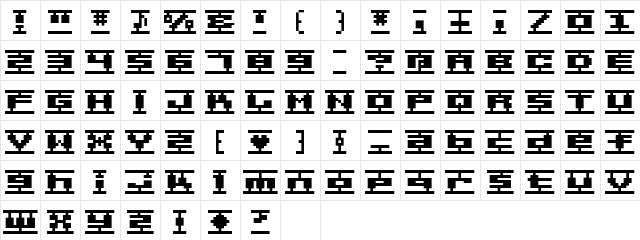
Complete BM plamo A9 glyph index. Displaying only characters natively supported by BM plamo A9 font.
BM plamo is a composed and adaptable typeface that performs quietly and consistently across a wide range of design contexts.